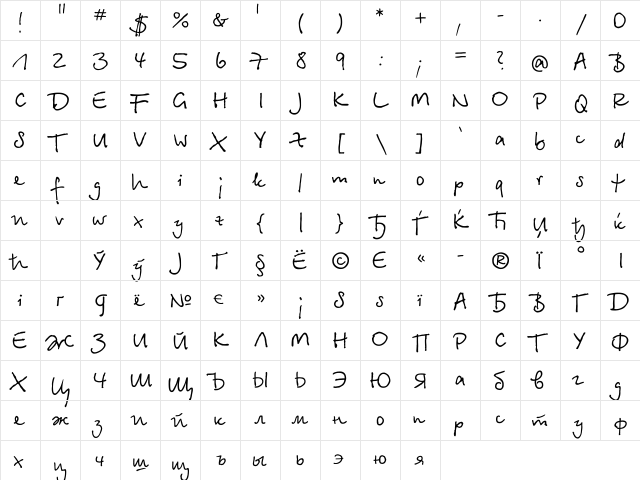
BetinaScriptCTT Regular Font Preview
BetinaScriptCTT Regular
Design Context for BetinaScriptCTT Typeface
BetinaScriptCTT brings a calligraphic fluidity to the page — its connecting strokes and expressive curves give it an unmistakably human quality.